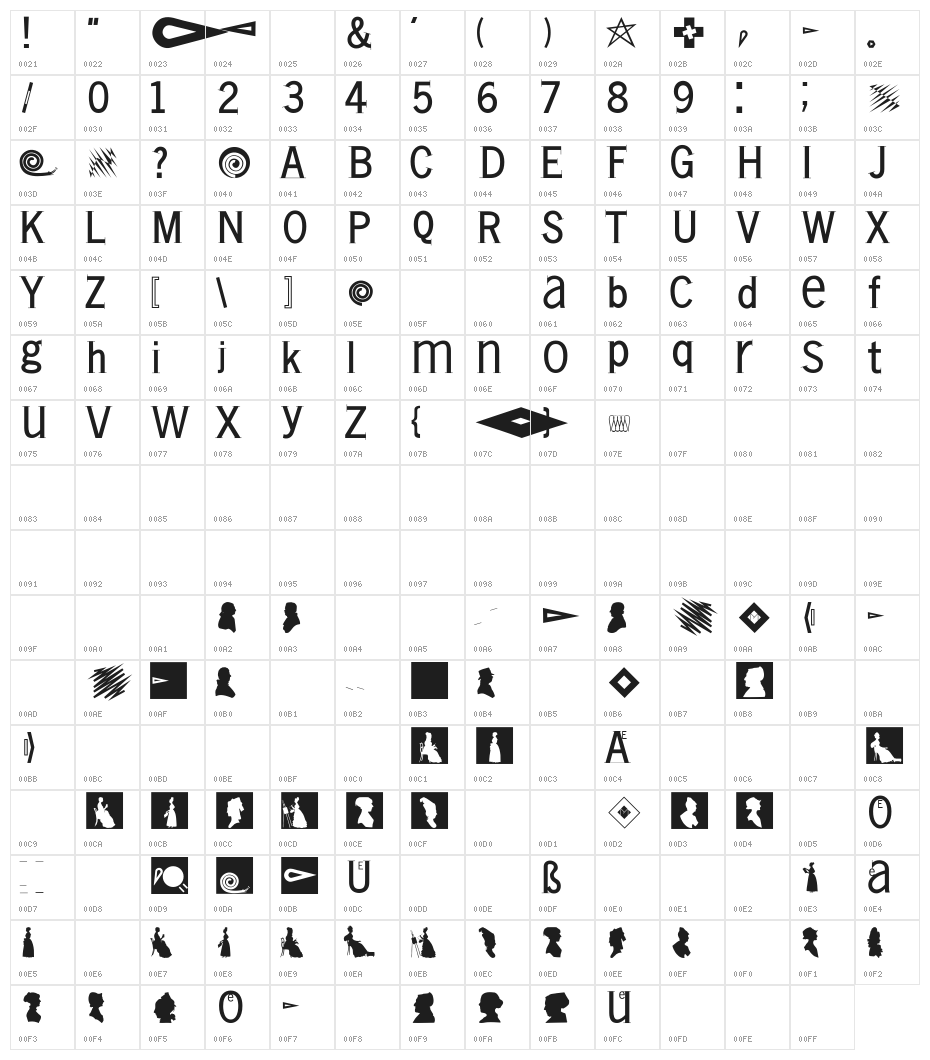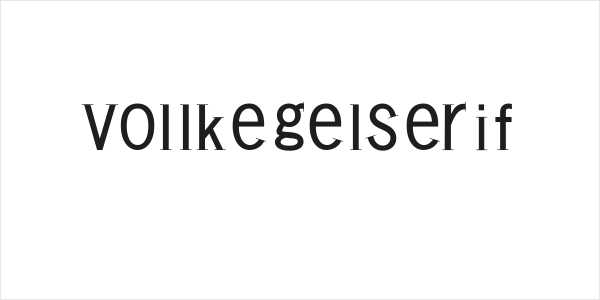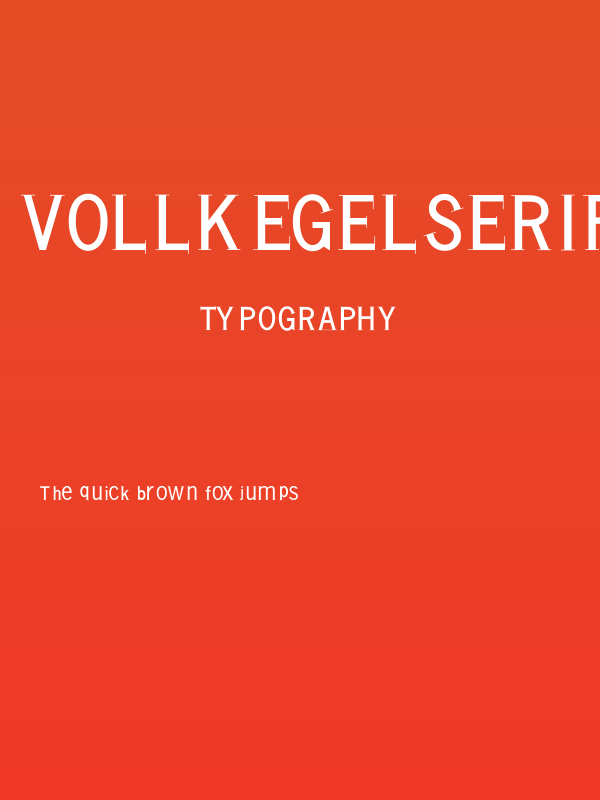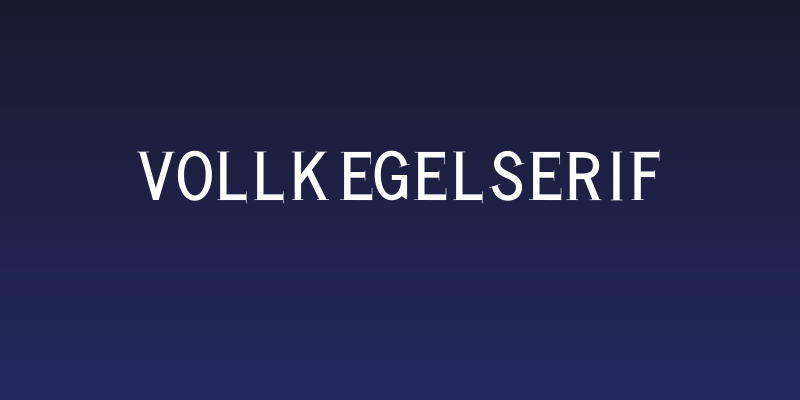
VollkegelSerif Font
VollkegelSerif Description
This serif font features a classic and elegant design with distinct, sharp serifs that give it a traditional yet modern appearance. The uppercase letters are bold and commanding, while the lowercase letters maintain a consistent flow with slightly rounded edges. The numerals are clear and legible, making them suitable for various applications. Special characters are uniquely styled, adding a touch of creativity to the overall design. The font's balance between thick and thin strokes provides a medium contrast, enhancing readability without sacrificing style.
| Proposed Projects | Ideal for editorial design, book covers, formal invitations, and branding projects that require a touch of sophistication. |